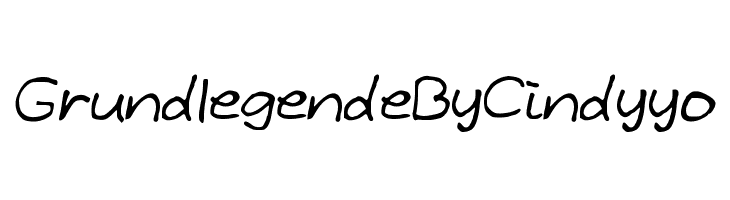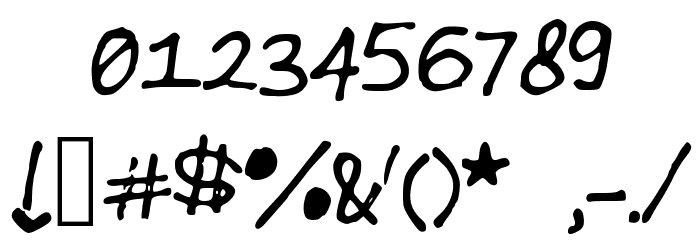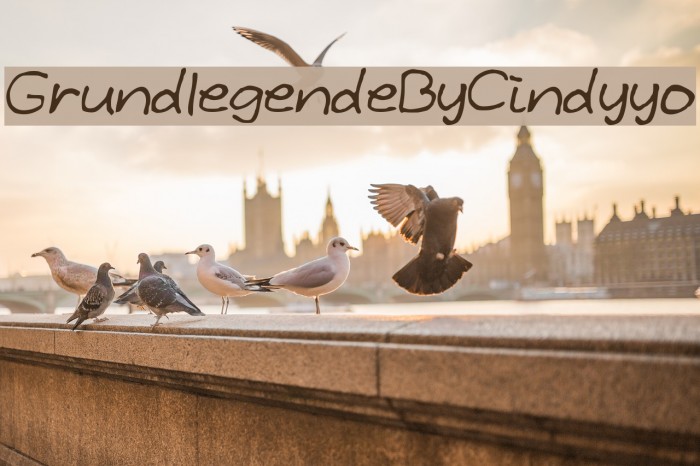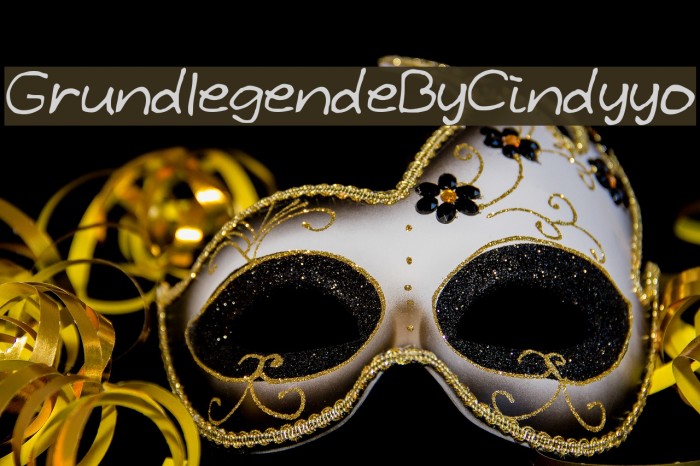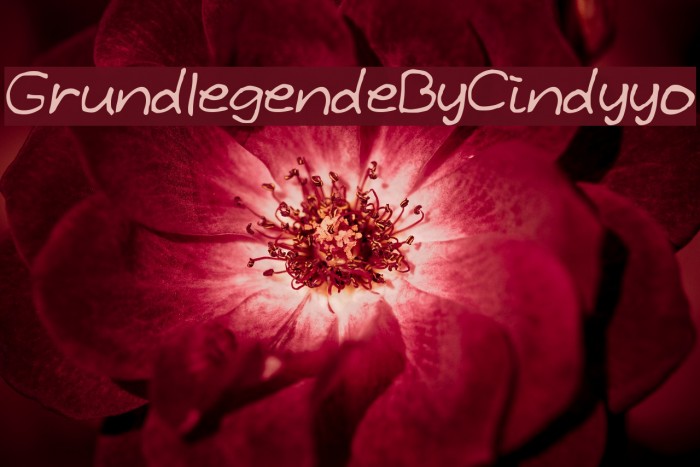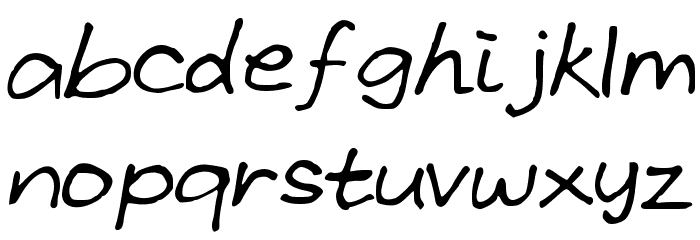
GrundlegendeByCindyyo Font
This font features a playful and casual handwritten style, characterized by its smooth and flowing letterforms. The uppercase letters maintain a consistent height, while the lowercase letters exhibit a slight slant, adding to the informal aesthetic. The numerals are clear and legible, matching the overall style of the alphabet. Special characters are creatively designed, maintaining the whimsical feel of the font. The strokes are moderately thick, providing good readability without sacrificing the handwritten charm. This font is perfect for projects that require a personal touch or a relaxed, friendly vibe.
A playful, handwritten font with smooth, flowing letterforms and moderate stroke thickness.
• Proposed Projects: Ideal for greeting cards, personal blogs, children's books, and casual branding projects.
• Category: Handwritten
• Overall Style: Casual, Playful
• Use Case: Headlines, Informal text, Personal projects